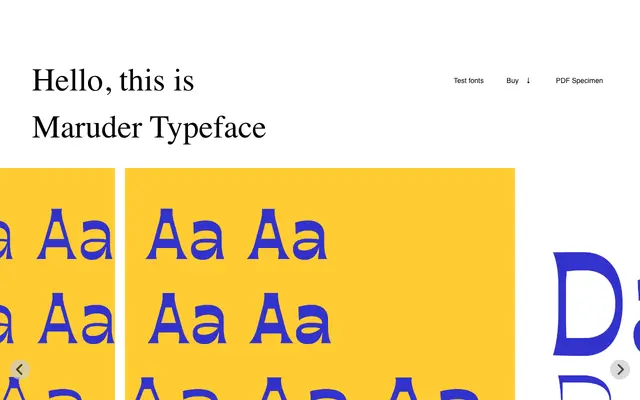
Maruder
A sharp display serif by Maciej Połczyński, built for headline use with full Polish diacritics and both lining and oldstyle figures.
Named after the Polish word for vagabond, Maruder is a serif typeface with angular, pointed letterforms aimed at headline and display settings. The character set covers the full Polish alphabet including diacritics such as ą, ć, ę and ź, making it a natural fit for Polish-language editorial work. Both lining and oldstyle figure sets are included, adding flexibility for typographic hierarchy.
Described explicitly as a sharp serif for headline purposes, with angular forms suited to display use rather than body text.